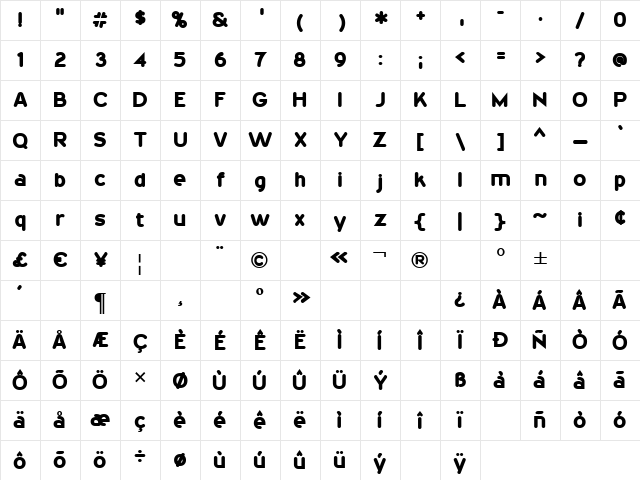
20th Century Font Bold Free Font
20th Century Font Bold
20th Century Font Family
Complete 20th Century Font Bold glyph index. Displaying only characters natively supported by 20th Century Font Bold font.
Design Context for 20th Century Font
20th Century Font is a composed and adaptable typeface that performs quietly and consistently across a wide range of design contexts. Its bold stroke weight gives it real presence on the page.